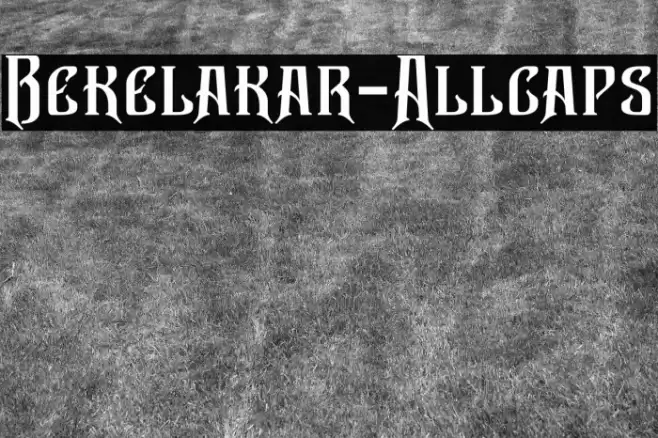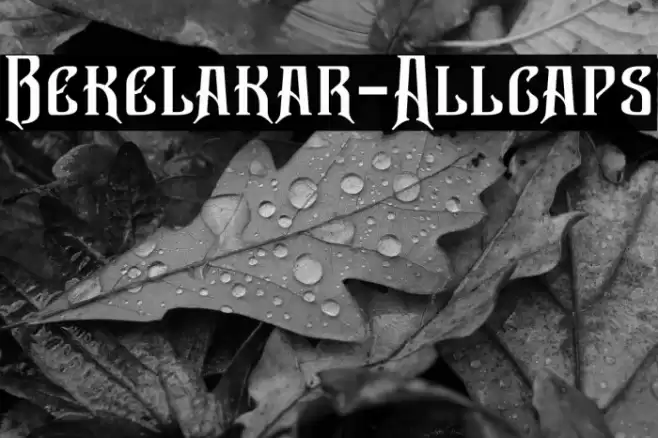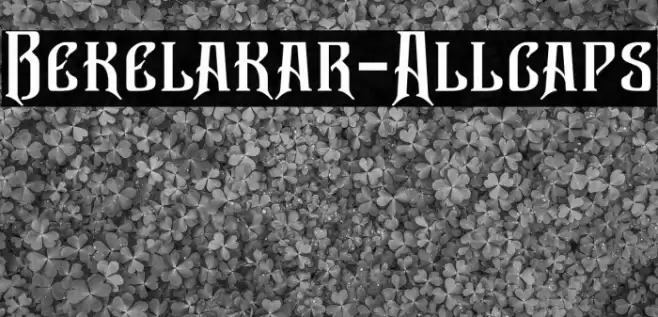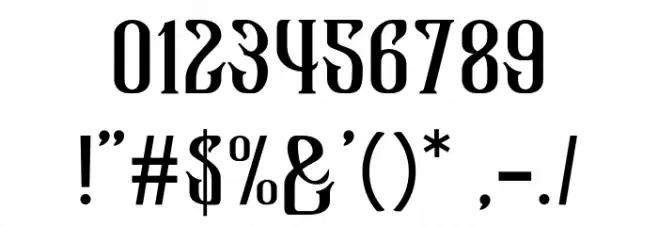
Bekelakar-Allcaps Font
Bekelakar-Allcaps Description
This font features a bold and striking design with a strong presence, characterized by its sharp, angular serifs and a gothic-inspired aesthetic. The uppercase letters are tall and narrow, giving a sense of height and elegance, while the lowercase letters maintain a consistent style with slightly more rounded forms. The numbers and special characters follow the same design principles, ensuring a cohesive look across all elements. The font's unique style makes it ideal for projects that require a dramatic and eye-catching typeface.
A bold, gothic-inspired font with sharp serifs and a dramatic presence from Uncategorized fonts.
- Proposed Projects: Ideal for branding, posters, album covers, and any project needing a bold, gothic aesthetic.
- Overall Style: Gothic, Decorative